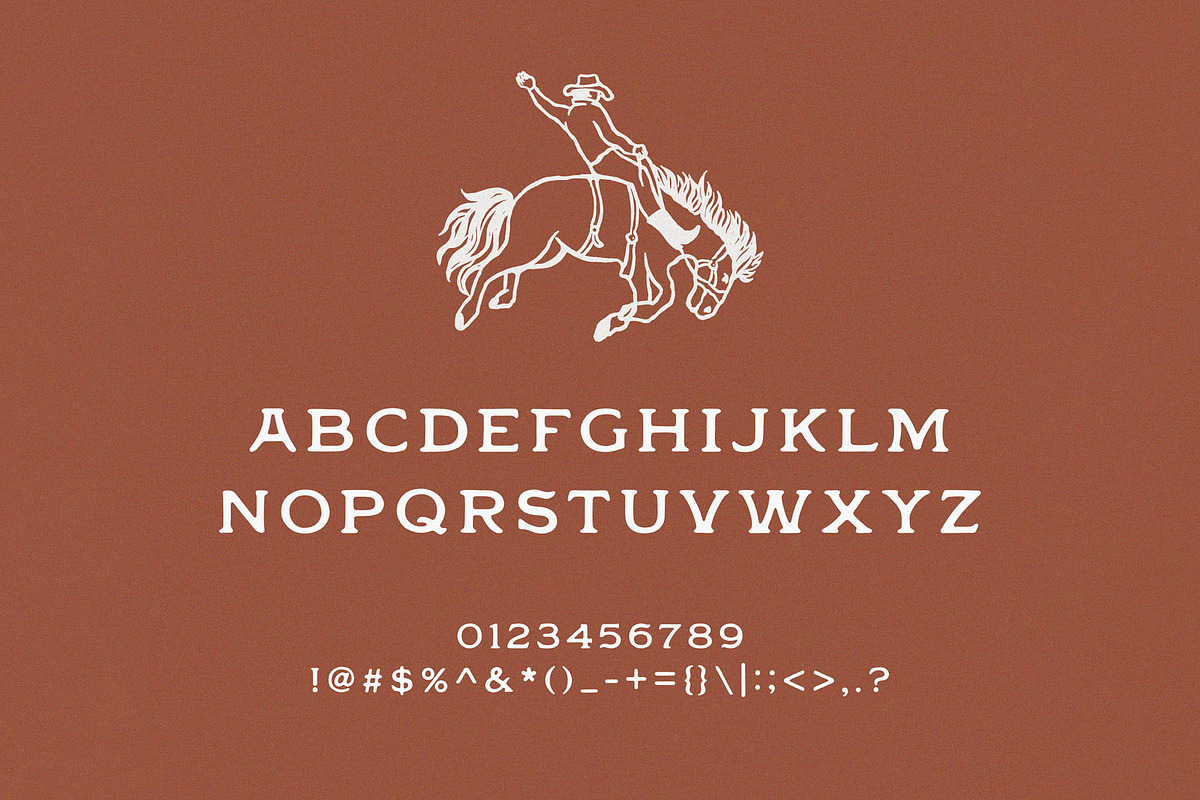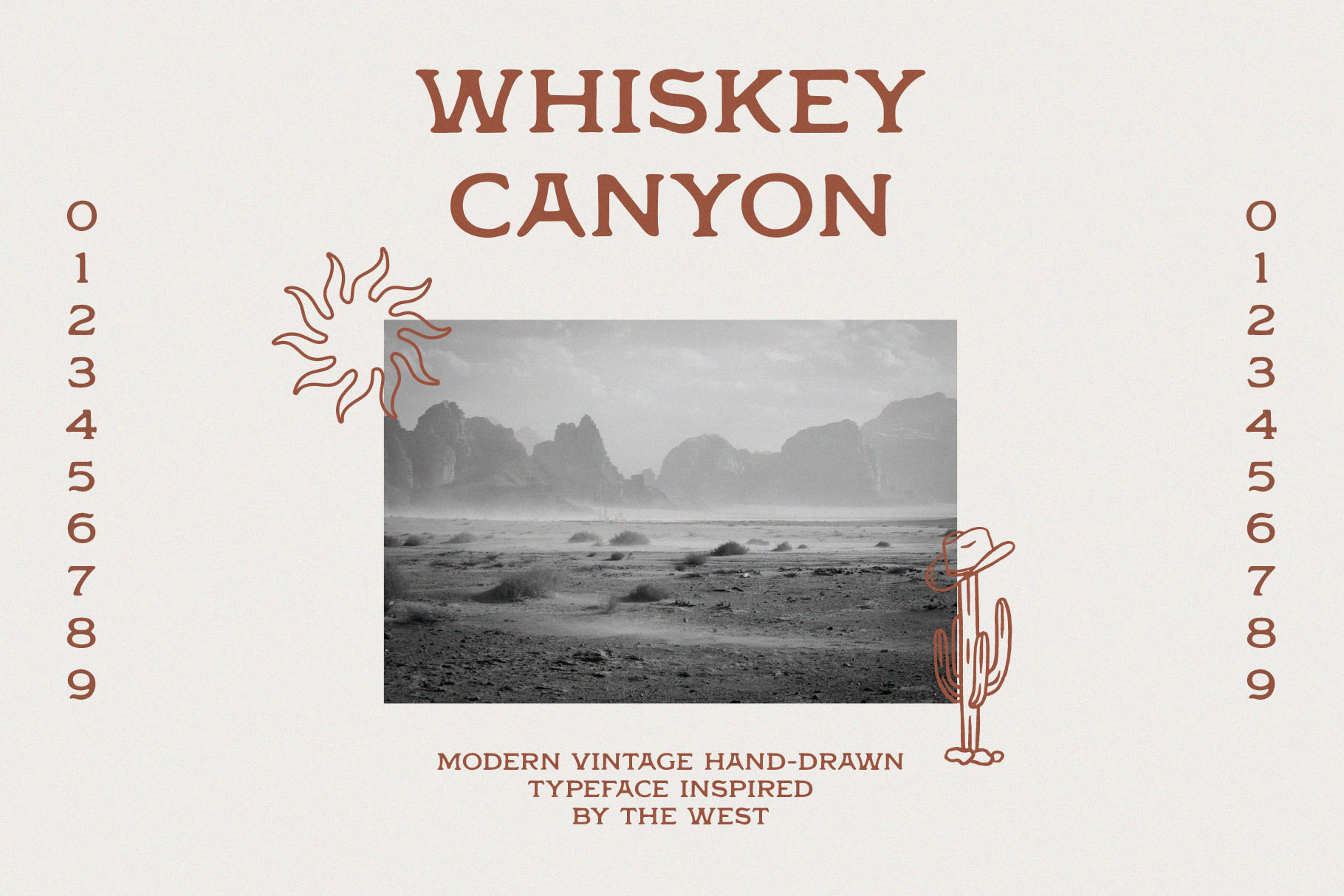
Whiskey Canyon Typeface
Hand-drawn typeface that blends modern style with vintage Western inspiration. This typeface captures the rugged spirit of the Wild West, perfect for creating classic yet contemporary designs. Punctuation is included.